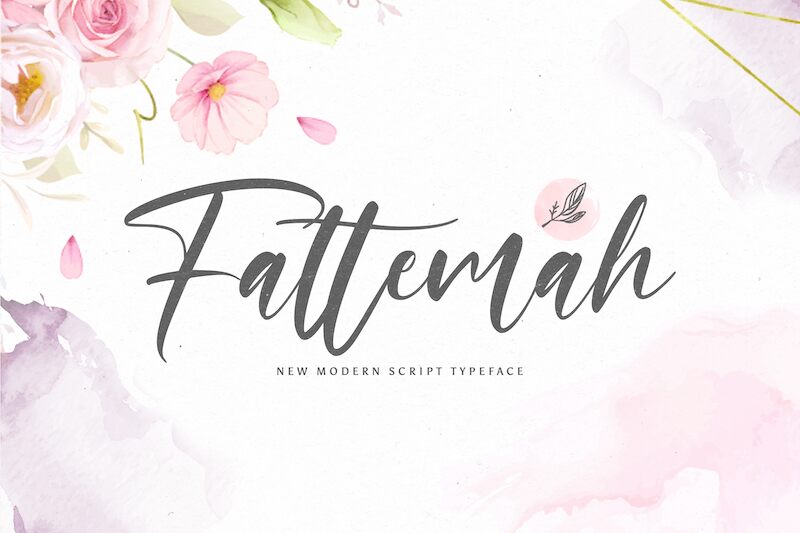
Fattemah
Fattemah, a captivating semi-light handwritten font by StringLabs Creative Studio, adds a touch of personality to any project. With its fluid strokes and elegant curves, this font lends itself well to various creative endeavors.
Use it to breathe life into wedding invitations or design eye-catching logos for boutique fashion brands. Its versatility also extends to children's book illustrations, where Fattemah's playful yet legible style brings stories to life.
Whether you're crafting inspiring quotes or creating captivating social media graphics, Fattemah is the perfect choice for adding an artistic flair.